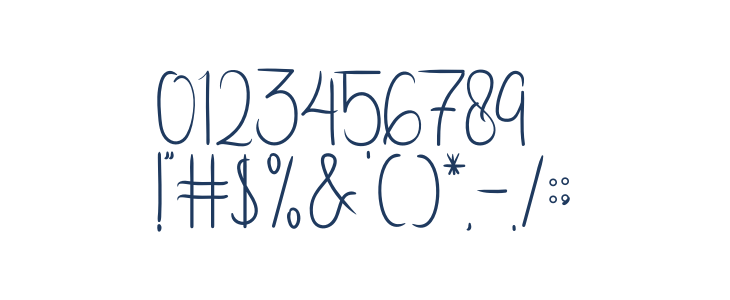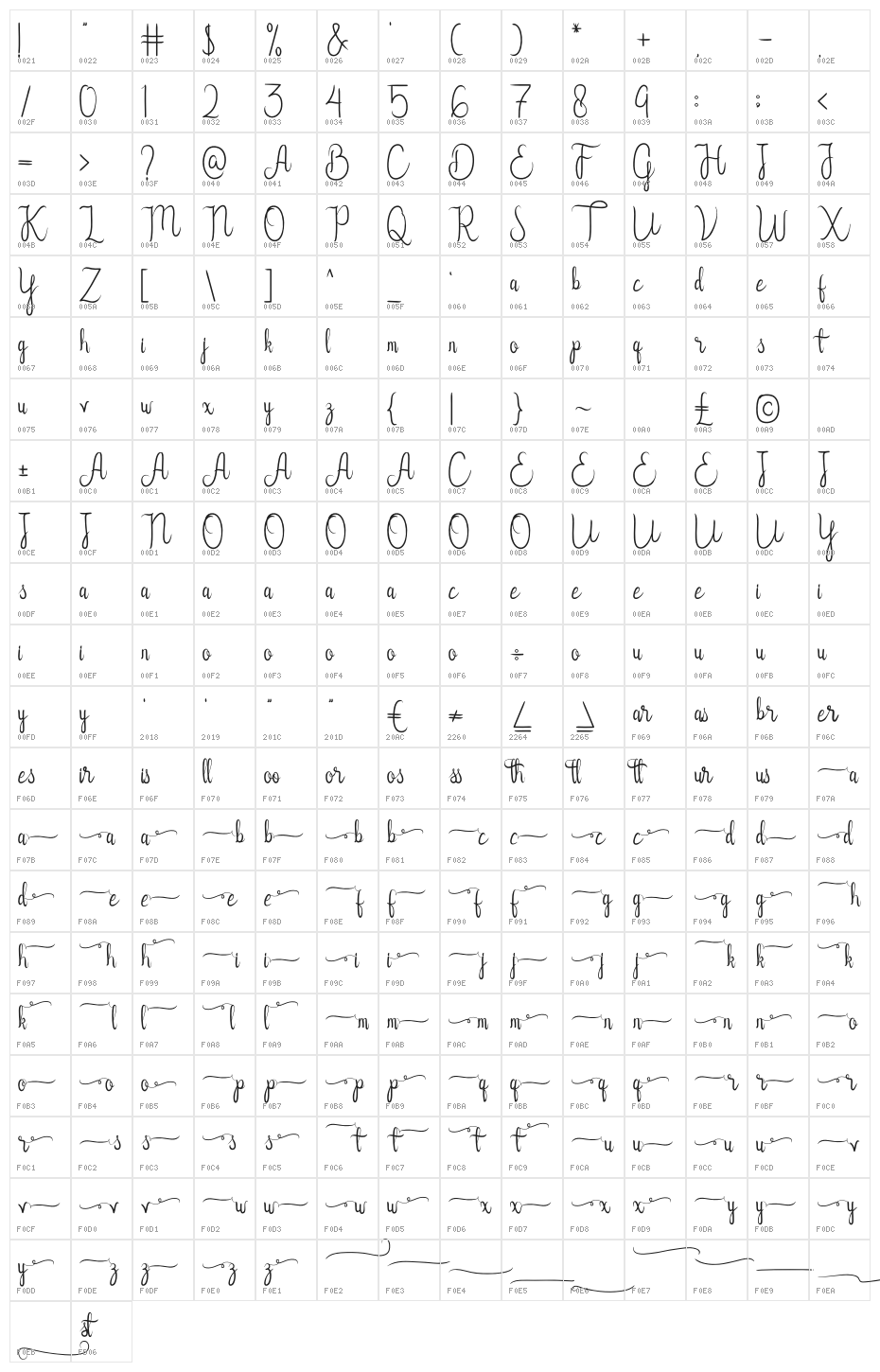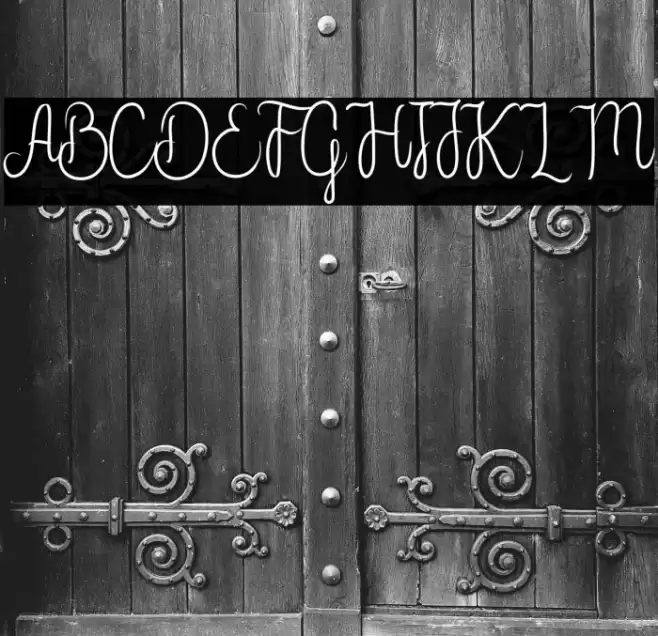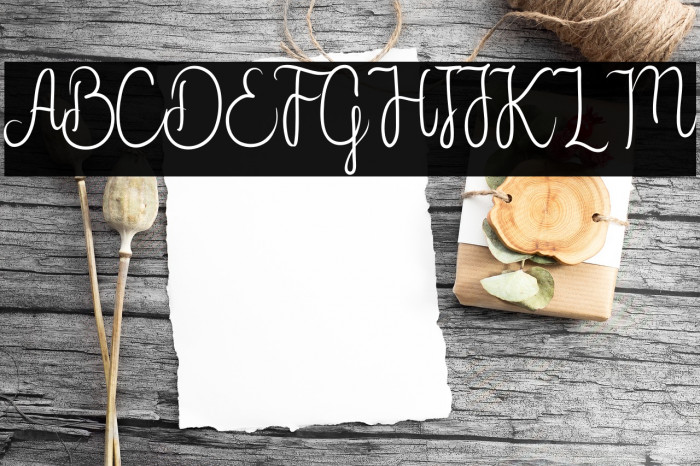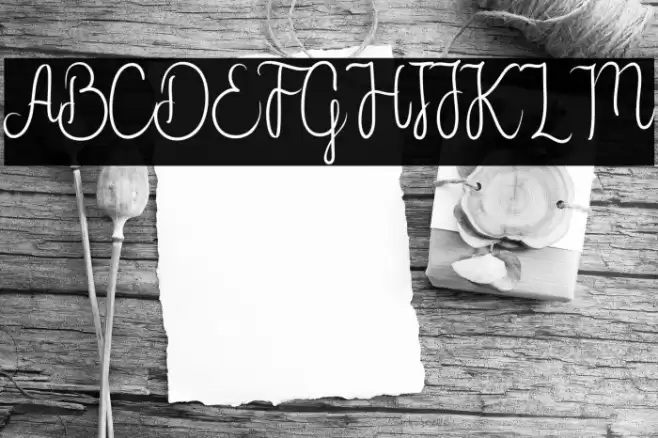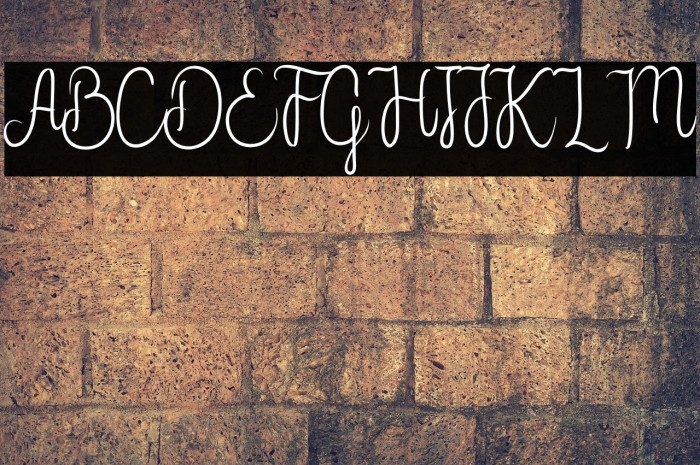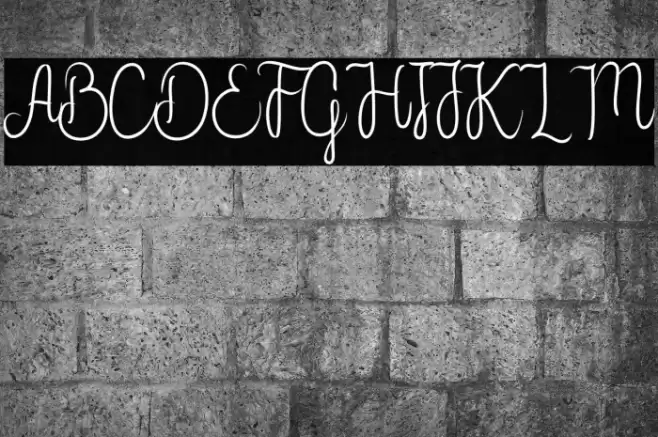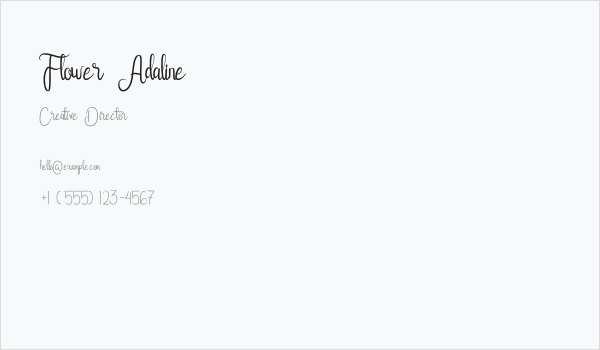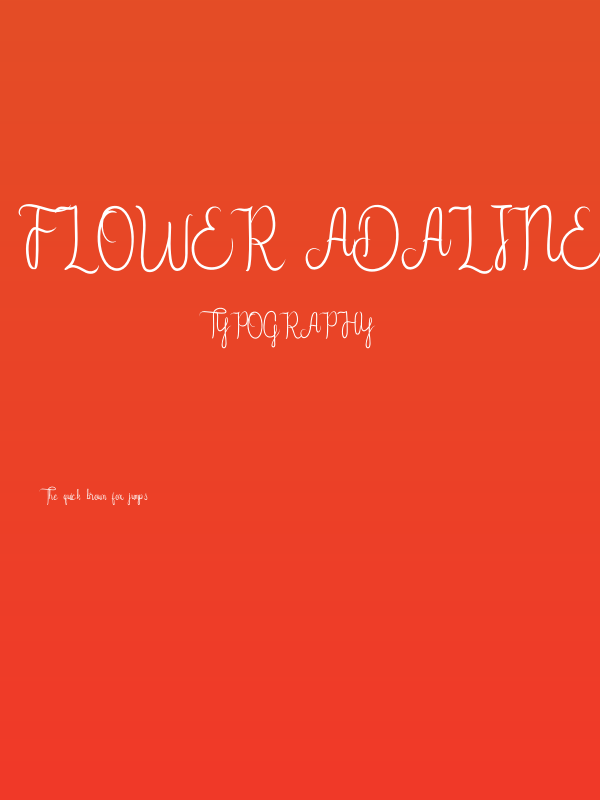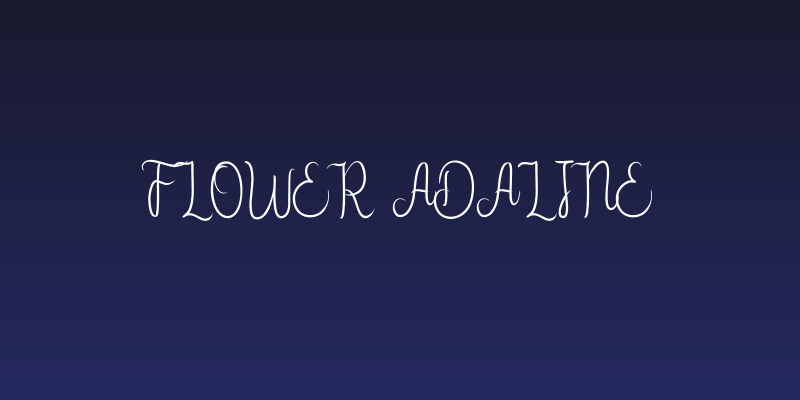
Flower Adaline Font
Flower Adaline Description
This font exhibits a playful and whimsical style with its flowing, cursive-like characters. The uppercase letters are tall and slender, featuring elegant loops and curves that give a sense of movement and fluidity. The lowercase letters maintain a consistent style, with some characters extending below the baseline, adding to the font's dynamic appearance. The numerals are distinct and easy to read, with a slight slant that complements the overall design. Special characters are creatively integrated, maintaining the font's cohesive look. This font's unique style makes it suitable for projects that require a touch of elegance and creativity.
| Use Case | Logos, Invitations, Decorative Text |
| Proposed Projects | Ideal for wedding invitations, greeting cards, branding, and creative design projects. |